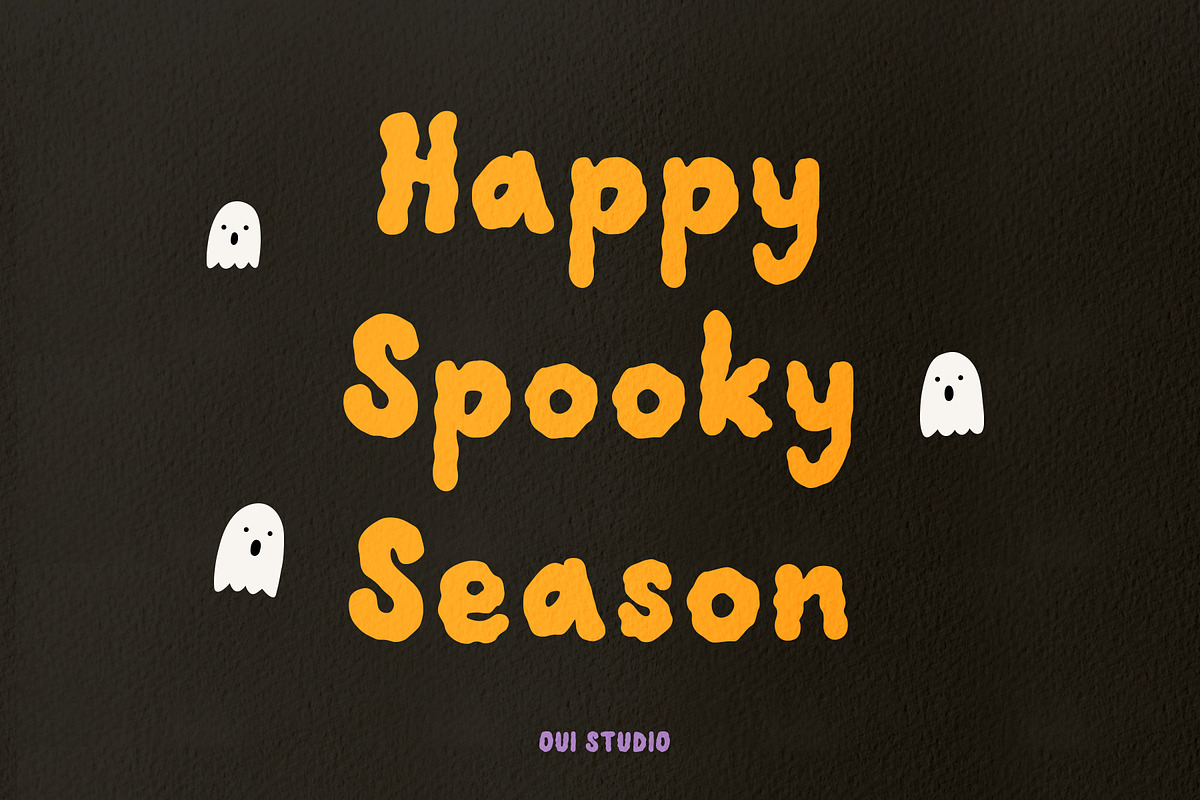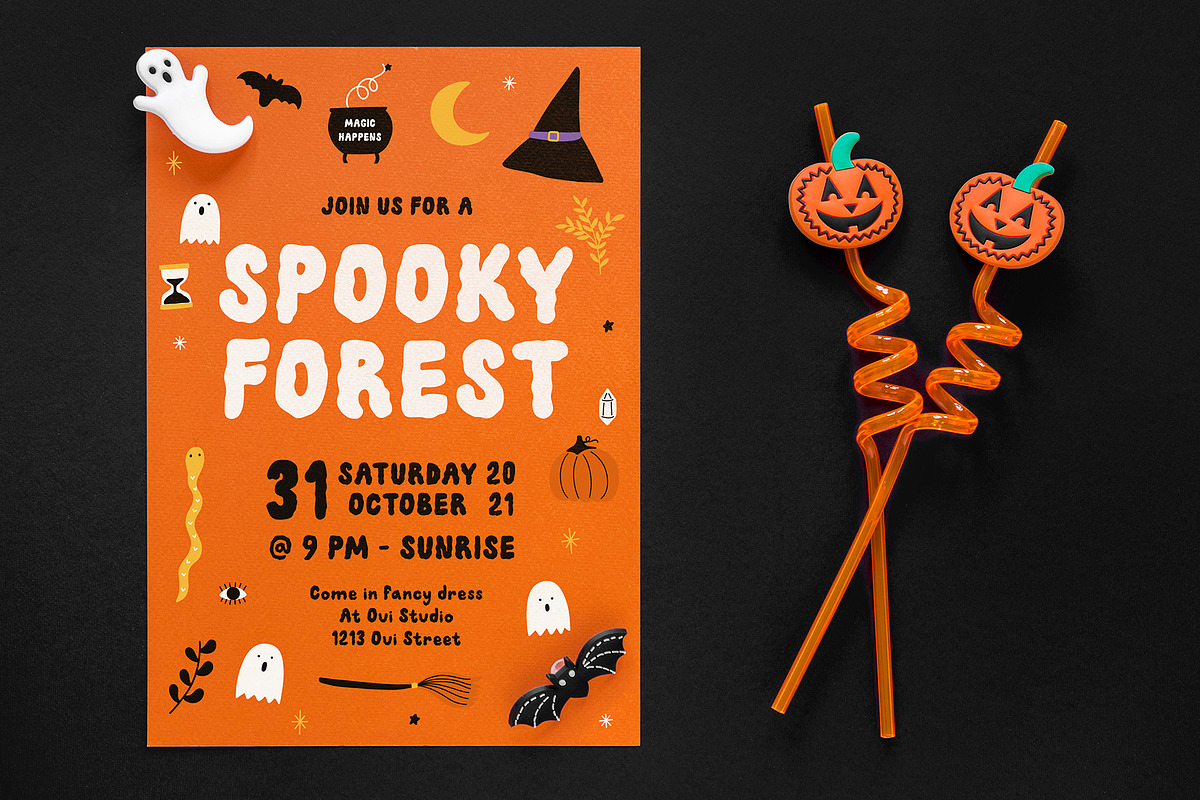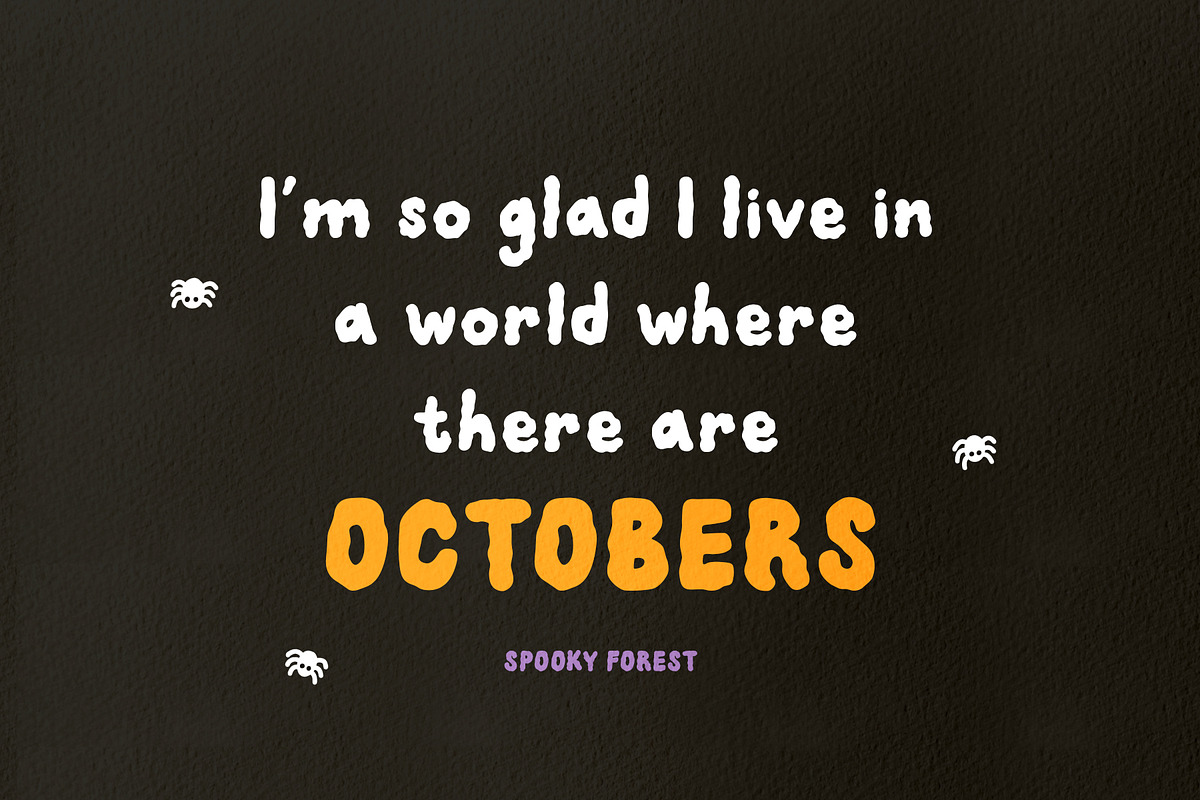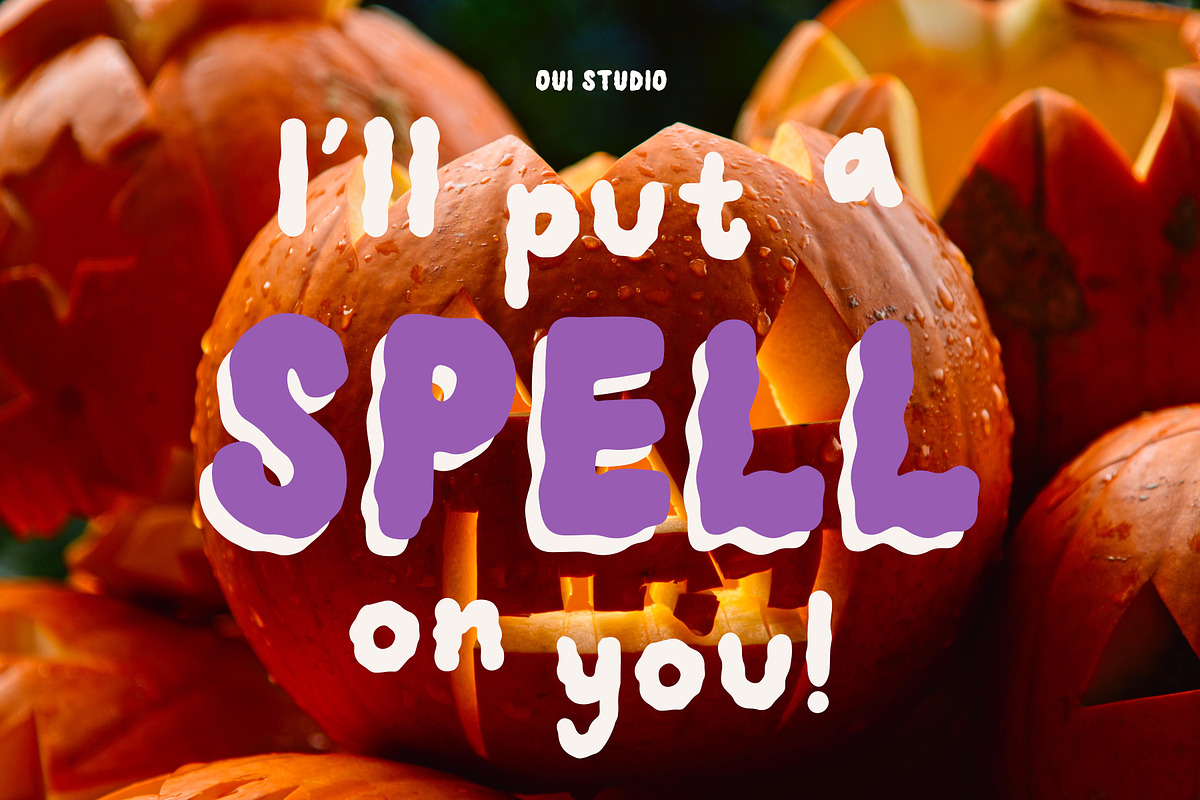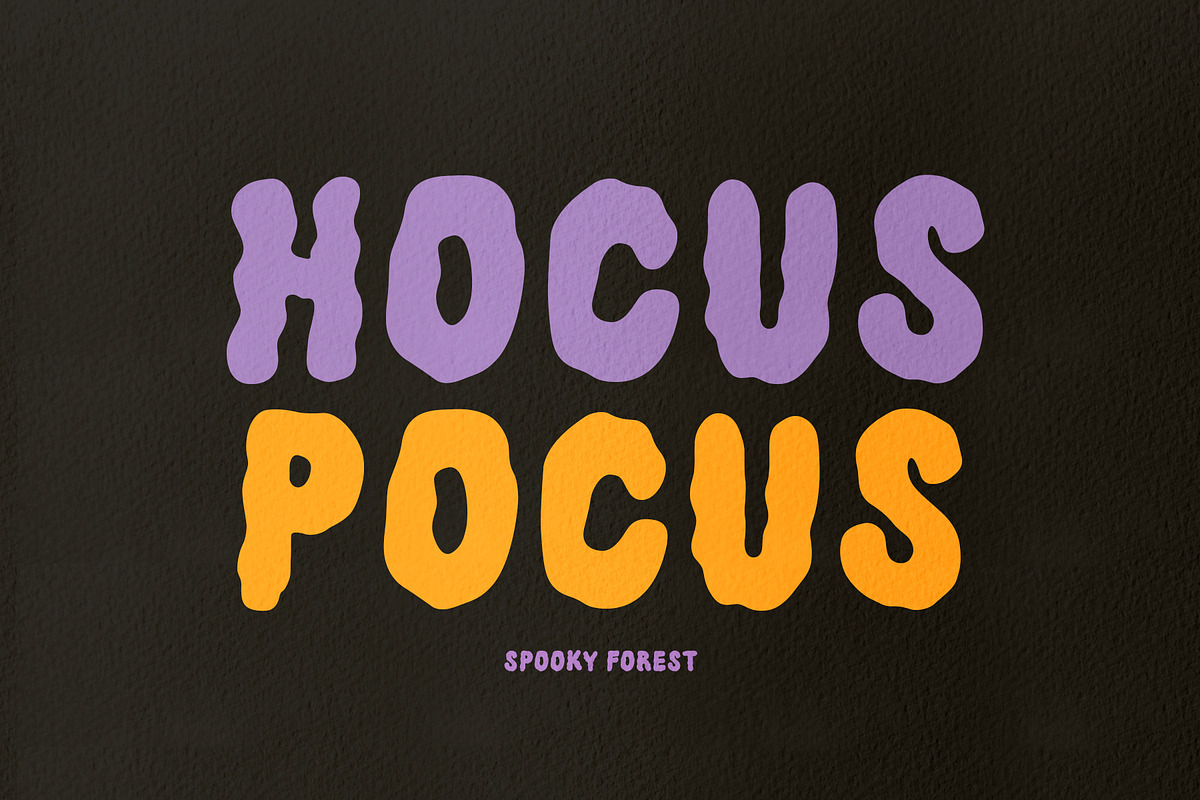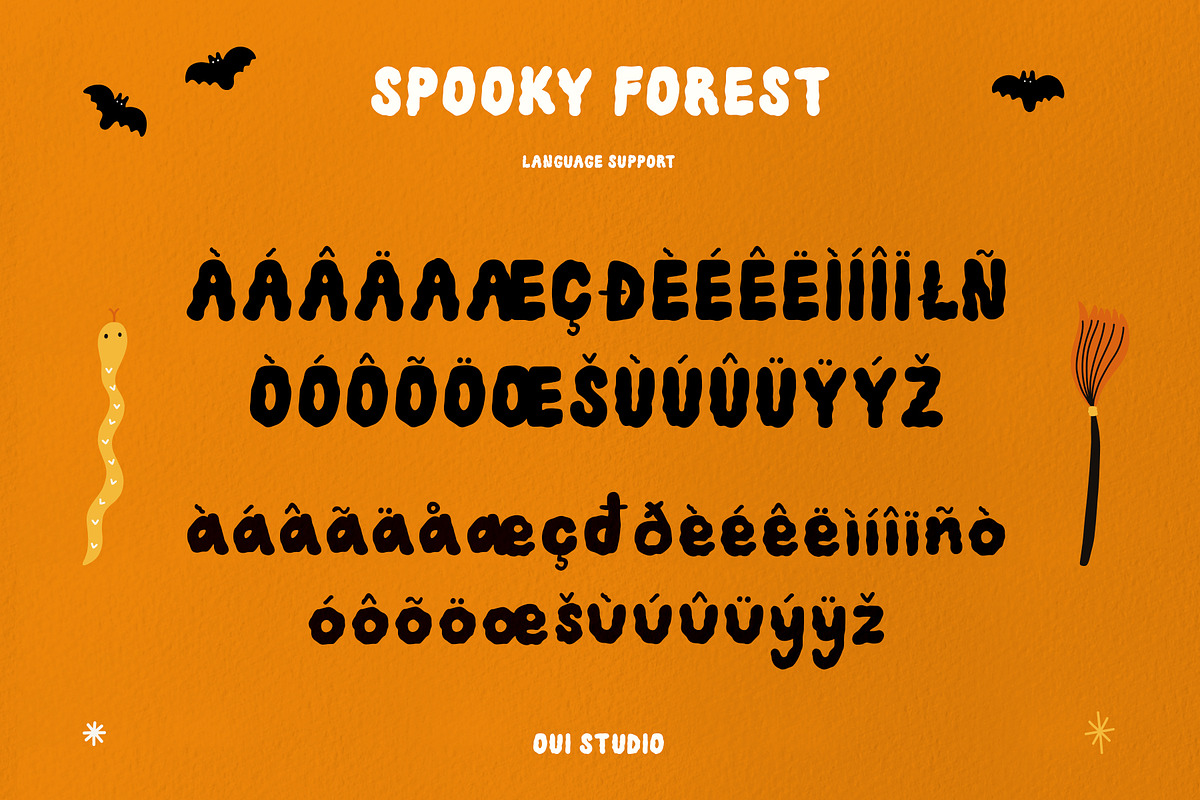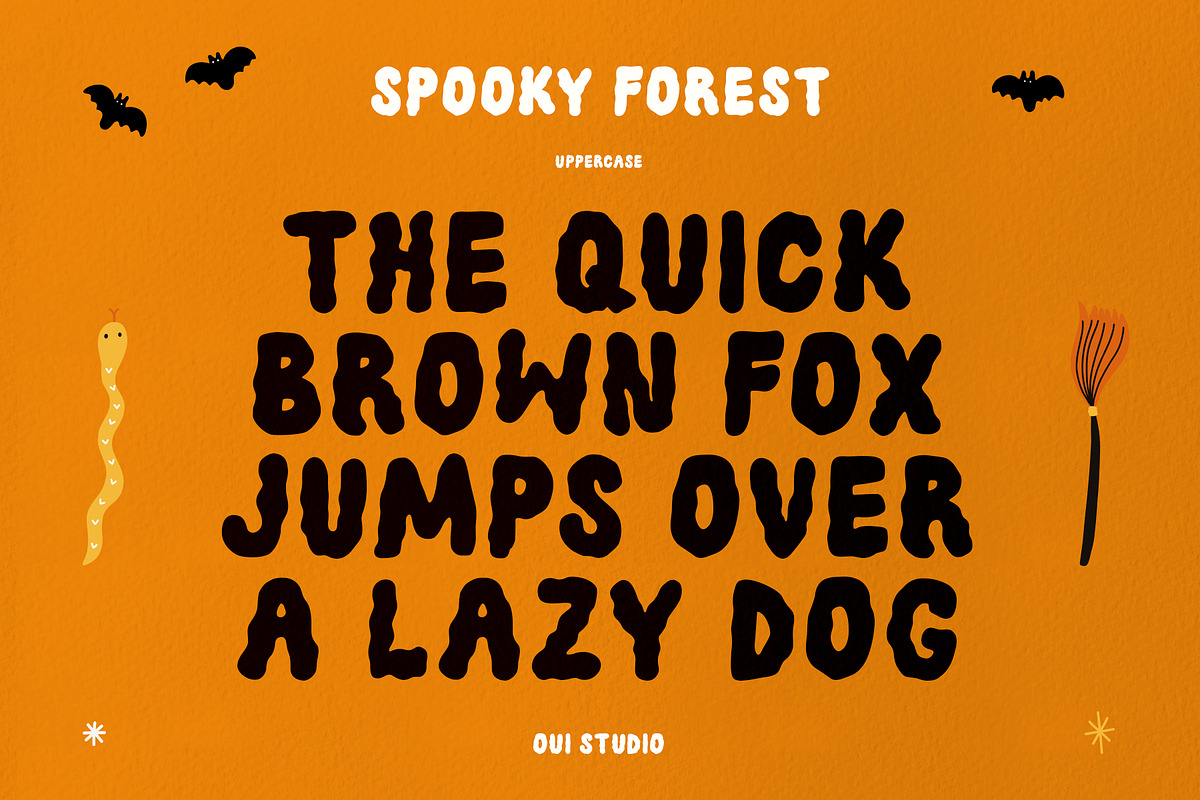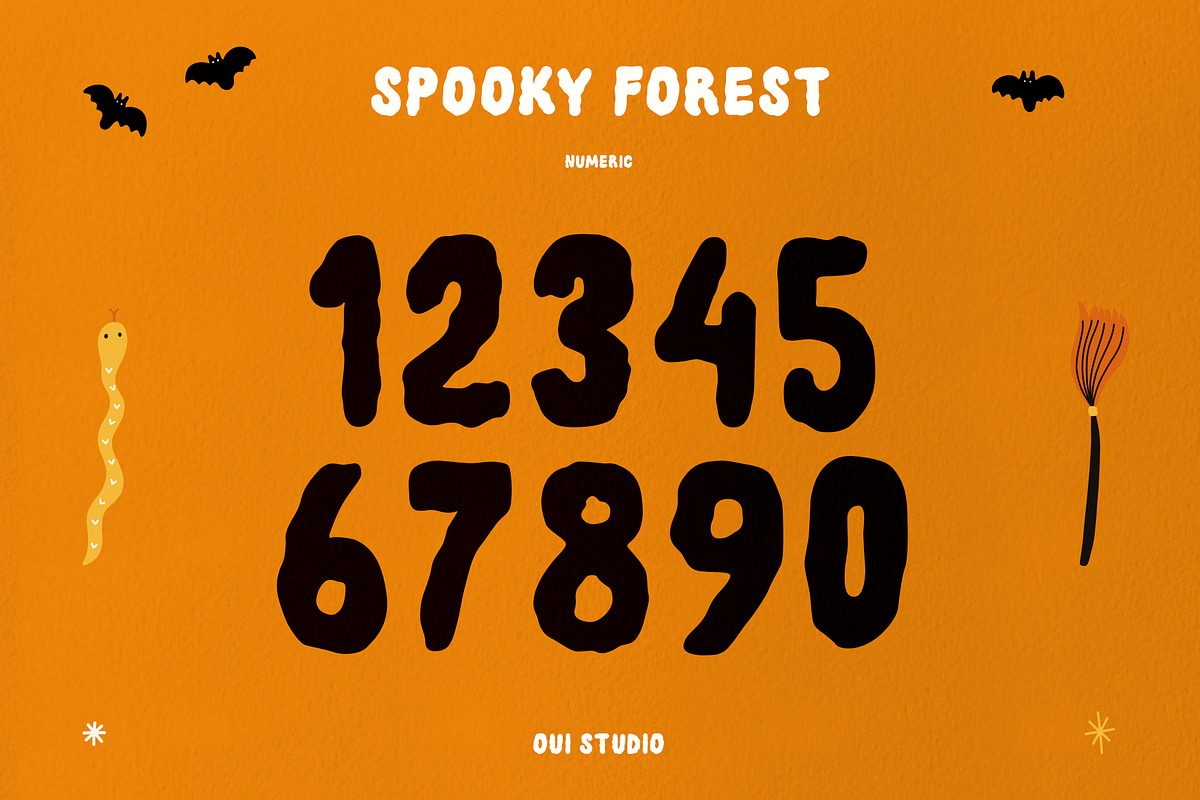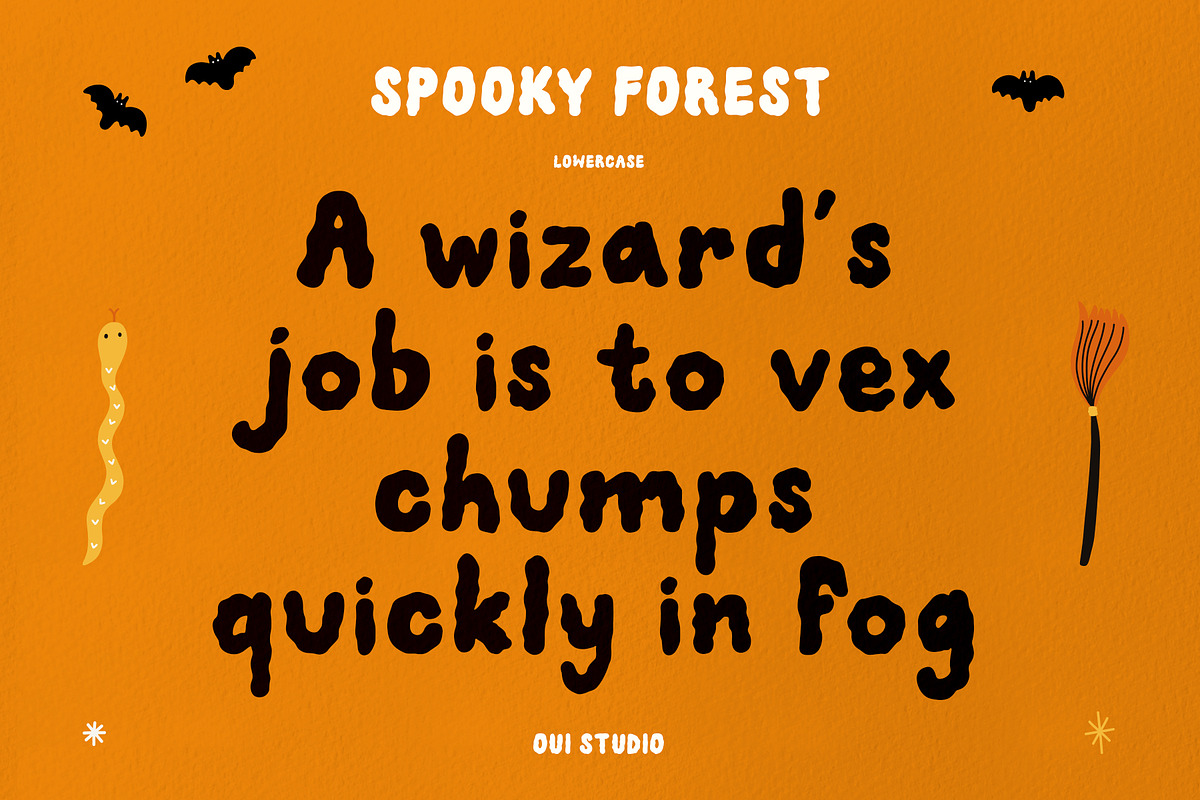
Spooky Forest Font + Bonus
Trick or treat? 'Spooky Forest' font is coming; cute horror font. Spooky Forest is perfect for Halloween theme, title, headline, quotes, brand, book, invitation, or your work to show the cute side of horror.